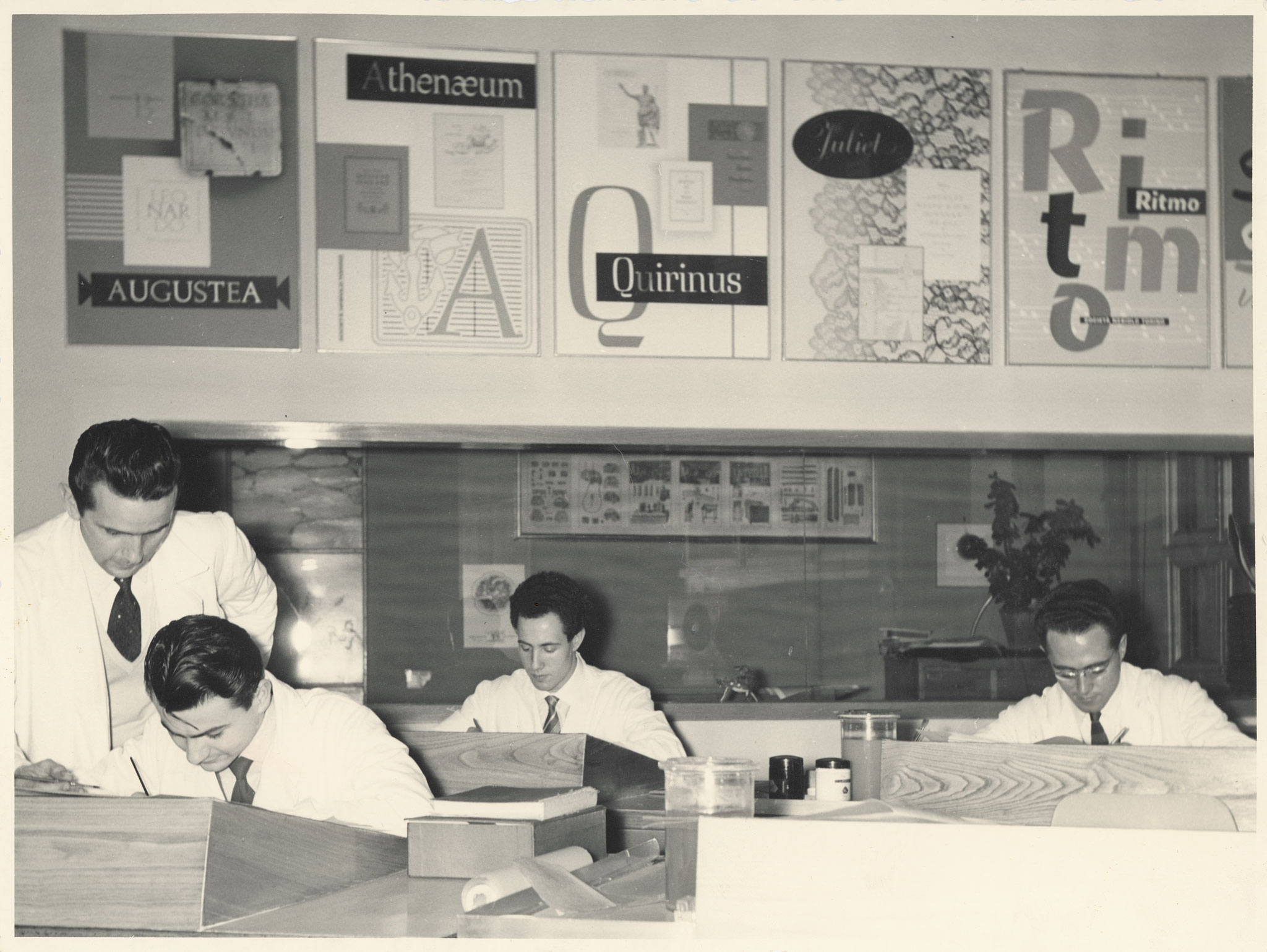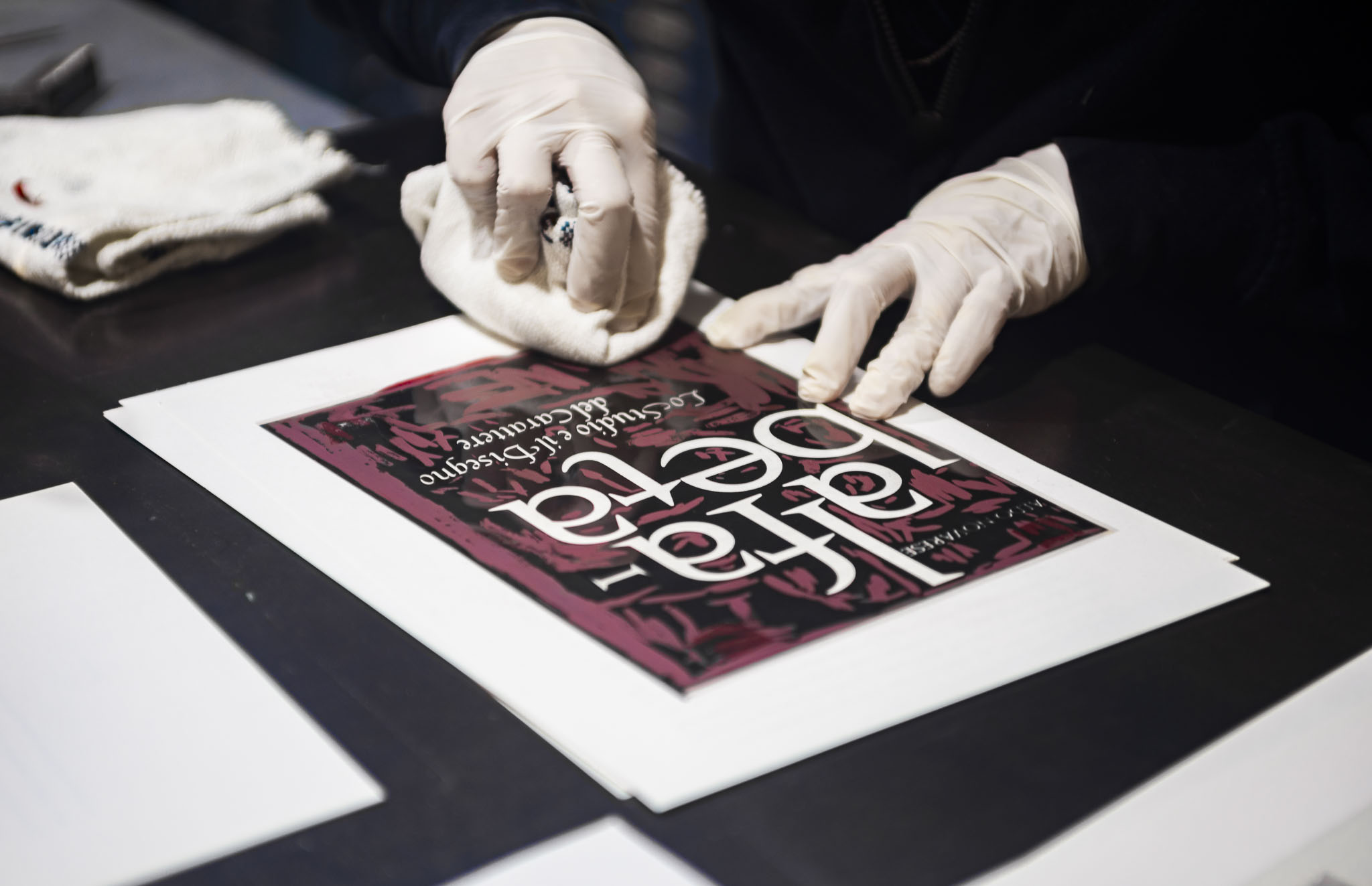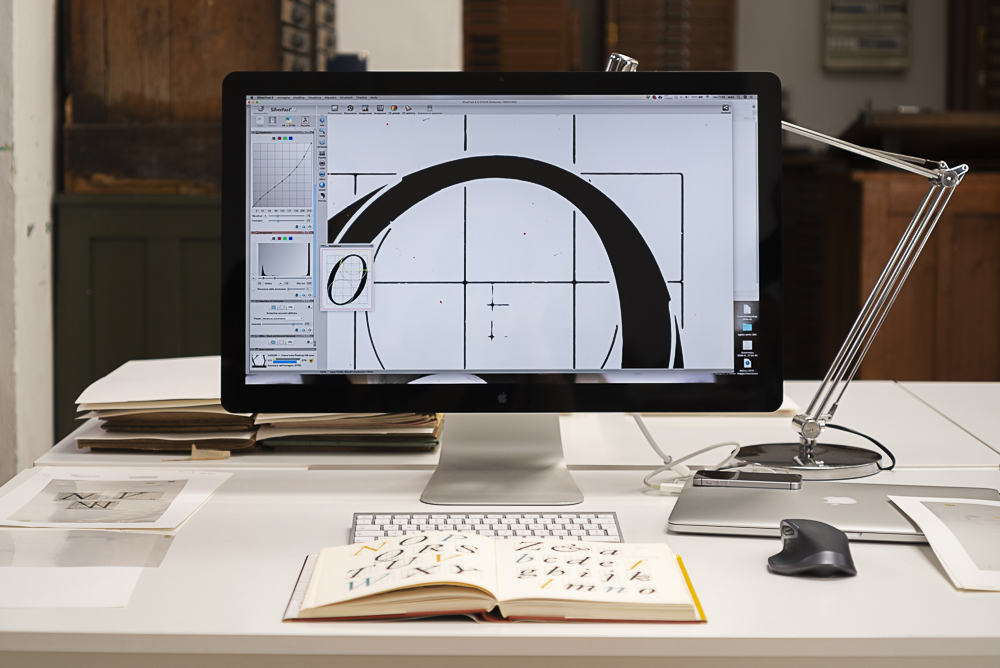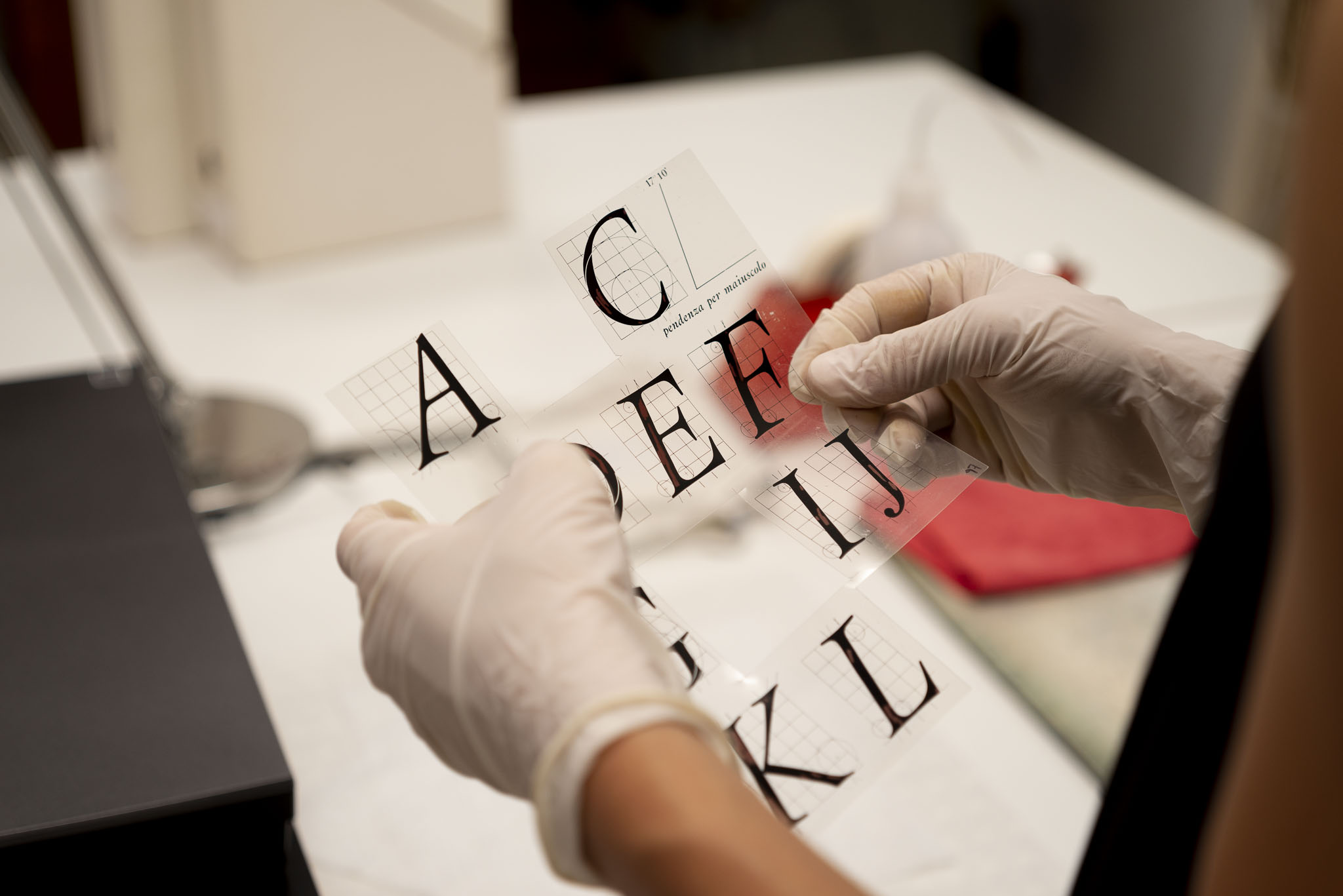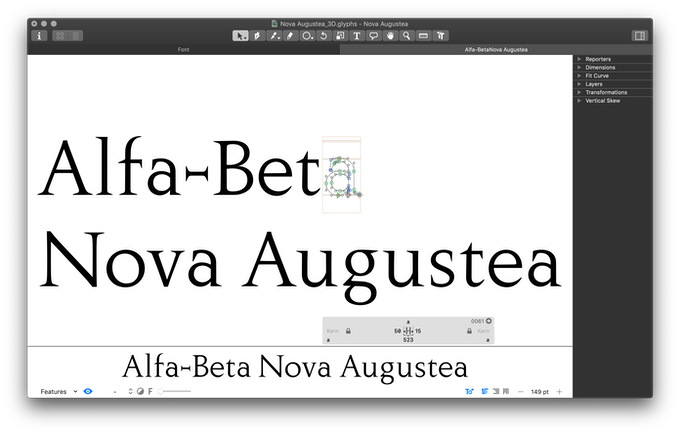
Aldo Novarese: the Italian type design maestro you didn't know -until now
In the event of Kickstarter’s well received and successfully funded campaign for the reissue of a typographic masterpiece aka Aldo Novarese’s Alfa-Beta book, literally a tribute to one of Italy’s most prominent type designers launched on the centenary of his birthday, Typeroom caught up with the family and team behind an iconic project.
In the following interview Matilde Argentero, one of the four Aldo Novarese’s granddaughters and a member of the project along with the design studio Archivio Tipografico speak of the overall work and design ethos of a figure that shaped the contemporary visual language. Novarese’s oeuvre was mostly unknown to most present-day typographic enthusiasts outside of Italy but the initiative to republish Alfa-Beta is about to restore his global reputation and change the course of typographic knowledge with beauty and type unfolding.
“Aldo Novarese is one of the often-overlooked maestros of 20th-century type design” wrote design historian Paul Shaw of the man who offered a variety of typefaces one should adore.
“His work veers from the sublime (Nova Augustea) to the goofy (Estro); from the ingenious (Stop) to the clumsy (Ritmo); and from the swoonily romantic (Fontanesi) to the severely utilitarian (Eurostile). Novarese is a designer one can simultaneously love and hate, but he cannot (and should not) be ignored” notes Shaw. But now it's about time to let the people of the project unveil the story of Italy’s typographic maestro in the interview below. A tribute to Aldo Novarese’s legacy follows.
Typeroom: What is the project all about?
Matilde Argentero: This project is about the reissue of one of my grandfather’s books: Alfa-Beta, published in two editions, first in 1964 and then in 1983 in a cheaper soft-cover edition for didactic purposes. We are currently working on the digitization of the films used for the second edition, matching simultaneously the fine details of the first edition like paper stock, binding and colors. The whole project is supported by a crowd-funding campaign which has been launched on the exact day of the centenary of Aldo’s birth, the 29th of June, 2020.
TR: How did you come up with the idea of releasing this book at this period of time?
MA: The project arose from the deep passion for letterforms and typography underlying our quest for inspiring books we often fall in love with. Type-crazed designer Lorenzo Bolzoni had his eye on Aldo Novarese’s Alfa-Beta, but had a hard time finding it. When he finally got his hands on a copy, the joy he felt sparked the idea of a reissue. He decided to reach out to Aldo’s heirs and, with help from Tipoteca Italiana—a museum in northeastern Italy that houses most of Novarese’s surviving work— got in touch with me, as one of Aldo Novarese’s granddaughters and designer. Serendipitously, I had recently begun rediscovering my grandfather’s work during visits to Archivio Tipografico, so was enthusiastic about the idea. I intuitively knew Archivio Tipografico’s team would be eager to dive in. Upon the forming of the team we all agreed that reissuing one of Aldo’s books was the perfect way to celebrate my grandfather’s centenary and we do believe Alfa-Beta is the book that best represents his figure.
TR: How would you describe Aldo Novarese in terms of personality?
MA: He was definitely a great worker, always having on-going projects, both in his professional and personal life. He surely was moved by a deep focus on reaching his goals and was absolutely prolific, always chasing for excellence in his doing.
Alongside his font designer activity to which he dedicated his lifelong career, he loved to paint and take pictures in his free time. He was clearly very creative, thoughtful and sensitive: he loved spending time on his own and taking shelter in art, where his emotions could be translated into a graphic language anyone could understand. He was a brilliant and smart alec man, especially when in good company. Rules were fundamental for him and would hardly tolerate those who didn’t respect them.
TR: How would you define his legacy in five words or less?
MA: I would use one of his most famous quotes: “Meglio essere criticati che ignorati” aka “Better to be criticised than ignored” in English?
TR: How long have you been working on this project?
MA: The first official meeting took place in October, during the 2019 edition of Torino Graphic Days. Since then Alfa-Beta has been one of our daily thoughts and all the energy we have dedicated to this project is coming back through the support people are giving us, which will allow Alfa-Beta to be printed again!
TR: Being a granddaughter of Novarese what is the most vivid memory you have of yourgrandfather? What is the most valuable advice he ever gave you if any?
MA: My personal memories about my grandfather are filtered by my seven-year-old personality. This is how old I was when he passed away. I clearly remember him as a handsome man, very elegant in his look and in his attitude. His home in Turin had a room designated as a personal study, where he kept colors, paper, paints and everything that would fulfill his creativity.
This room had a magic aura around and I could step into it only a few times, but I recall these visits as a dream coming true. The smell of paint in the air made me feel that I was entering a magic space, where almost anything thinkable was made possible by a wise man and his skillful hands.
Even though I cannot recall any of the words he told me in these occasions, from this experience I have learned to save a sacred space both in my mind and in my house for letting my creativity express using any available means. I guess this is freedom to me.
MA: The historical excursus through human writing systems allows very different music styles to accompany at best all typographical illustrations of this very visual manual. Our attempt is, though, to give a new life to Alfa-Beta, so I would suggest our readers to make a selection of experimental music and then check how such contemporary vibes influence the fruition of this book.